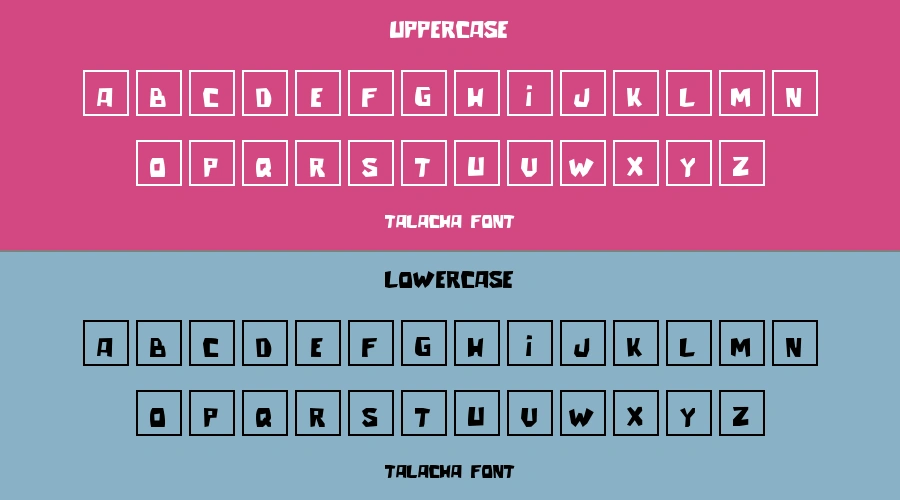
About talacha Font
talacha Font stands out for its distinctive combination of consistent strokes and brand distinction. Ideal for film titles, it provides the distinctiveness and practical utility that professional projects demand. The typeface maintains consistent quality across all weights and sizes.
Key features include refined expressive energy and practical multiple weights, enhancing typographic expression. In brochures applications, talacha Font demonstrates exceptional impact retention. The stroke contrast and personality contribute to its distinctive character and professional appeal.